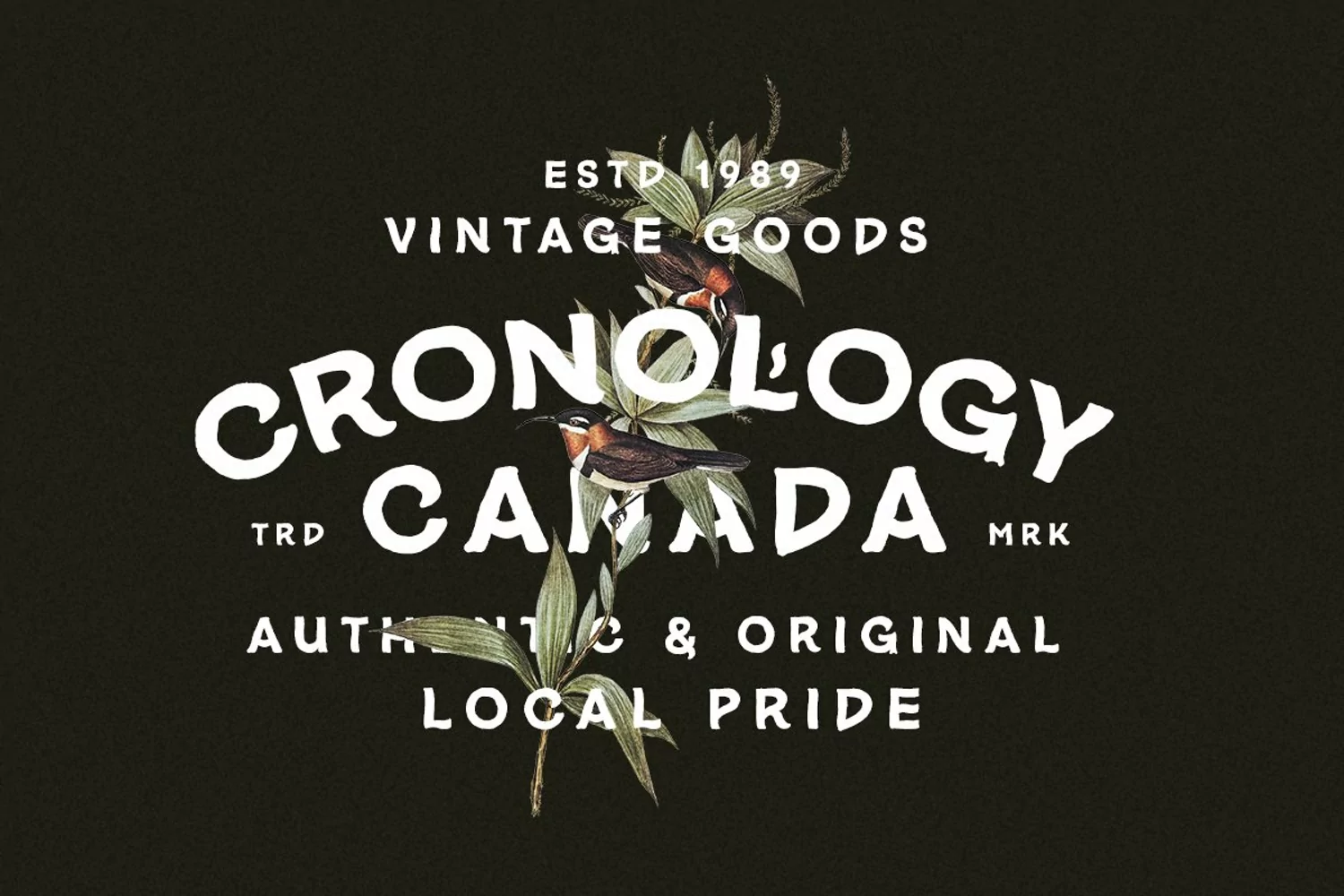
Cronera is a handcrafted font based in sans serif. With carefully crafted, this font have a hand lettering vibes that will make your design more natural and humanist. You can use this font for book cover, your t-shirt design, quotes, or even your branding! With outline version, this font will suitable for many projects. This font also support multilingual!